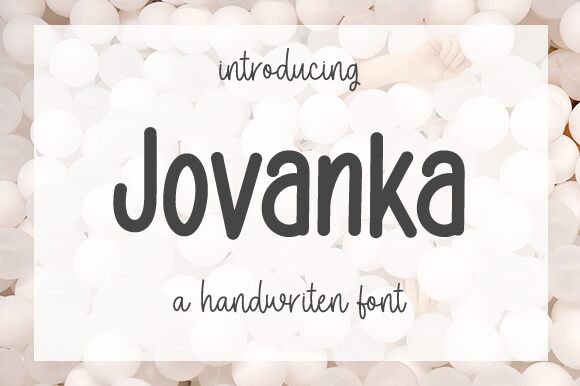
Jovanka
Introducing Jovanka, a narrow and light handwritten font designed by Aldi Raya Pradipta. Perfect for adding a personal touch to invitations, posters, and logos; Jovanka is the ideal choice for projects needing an organic and unique feel.